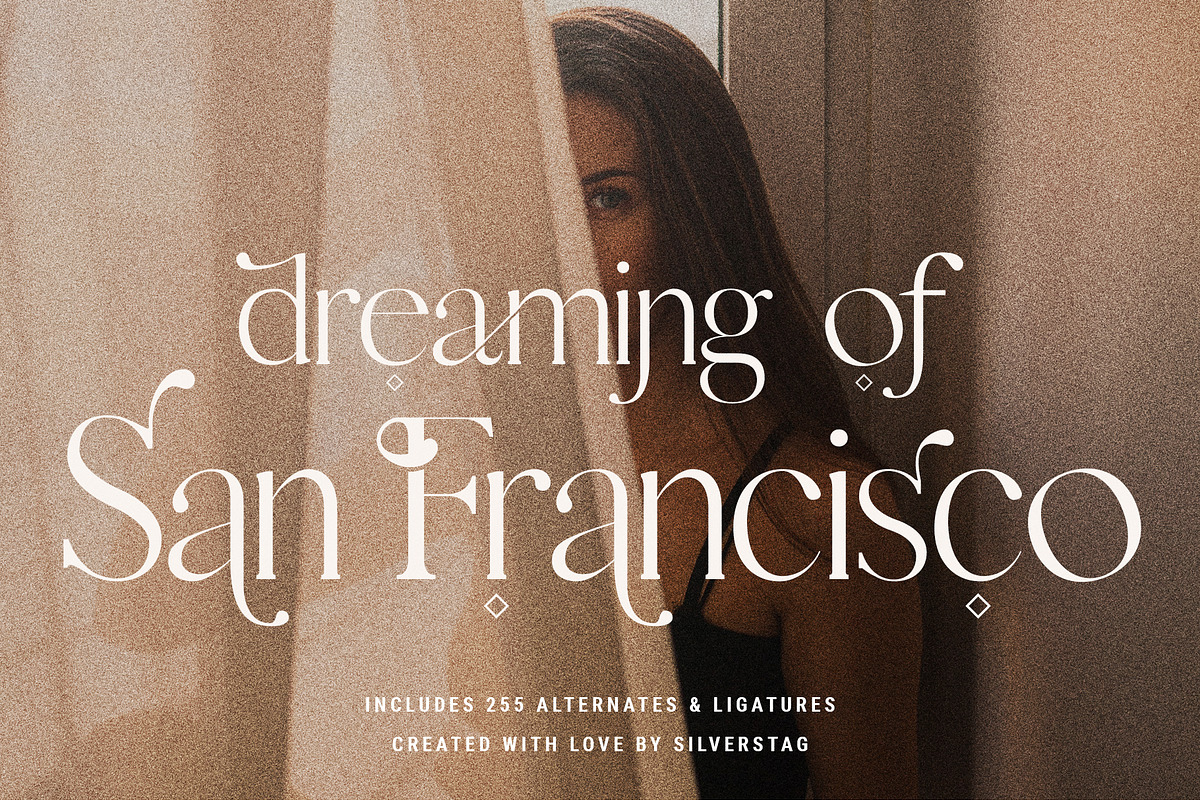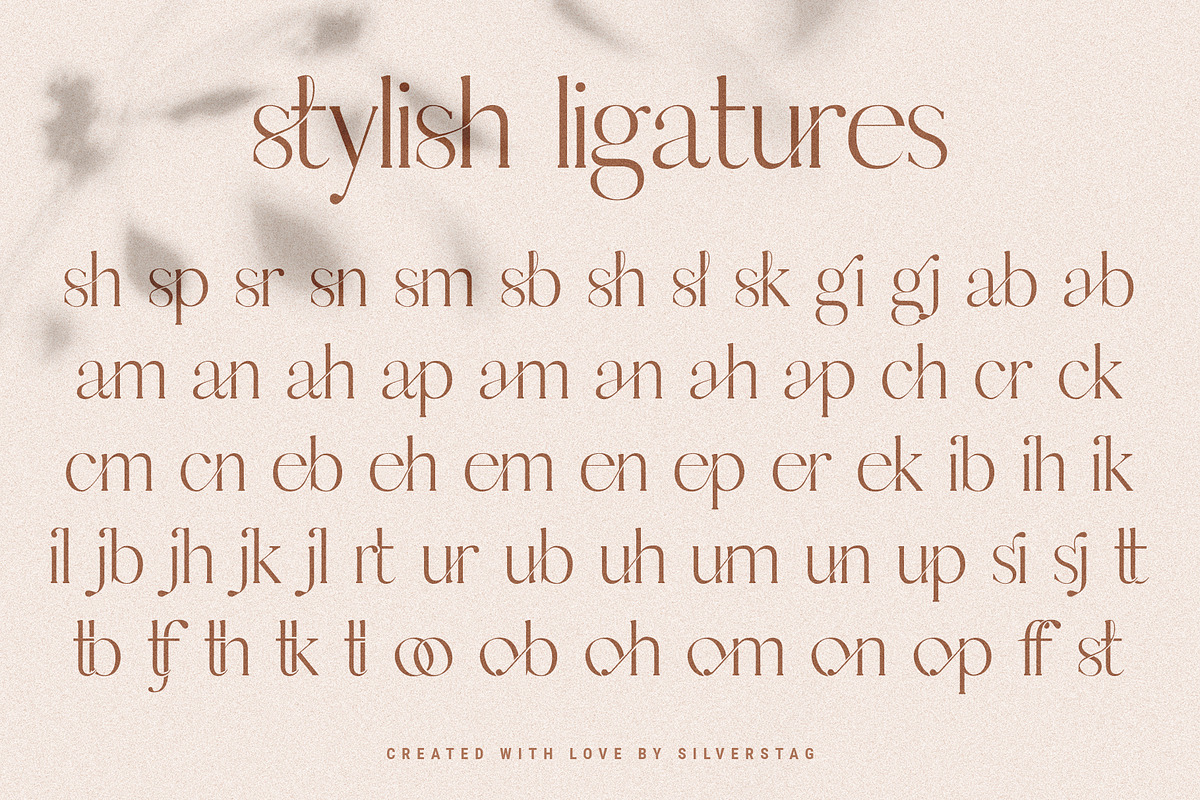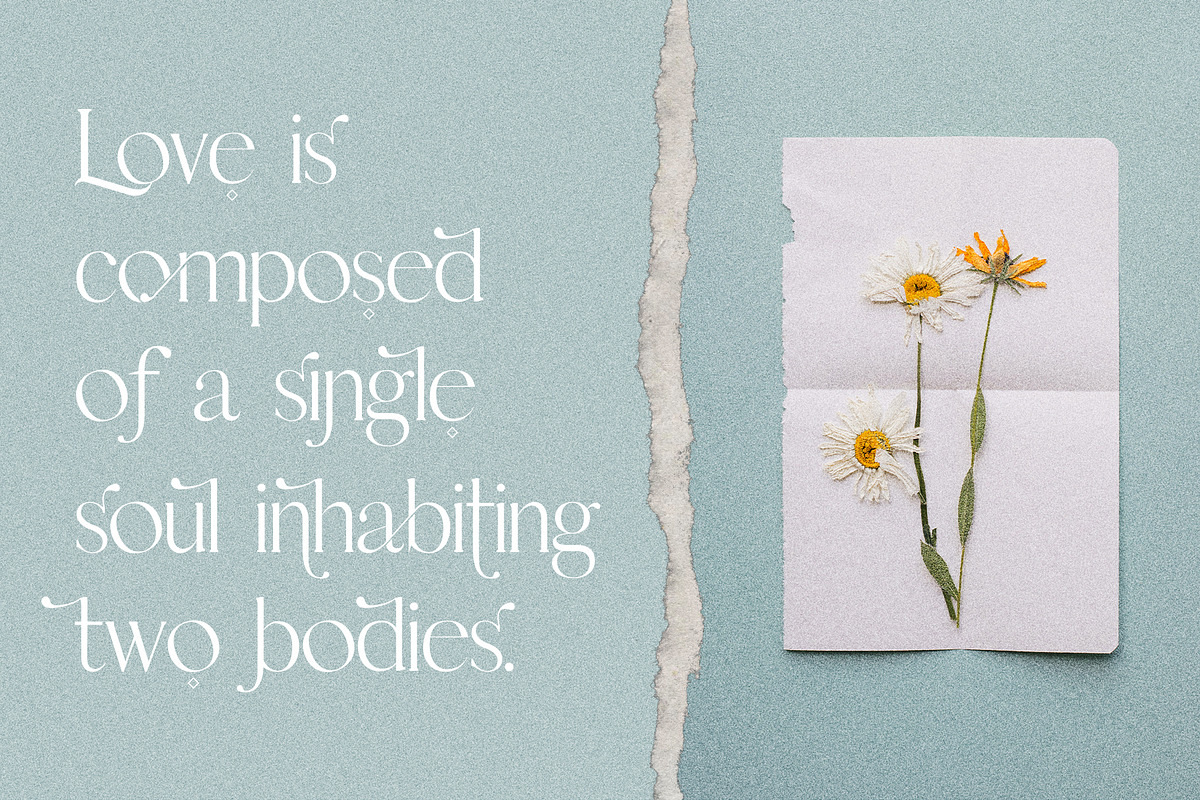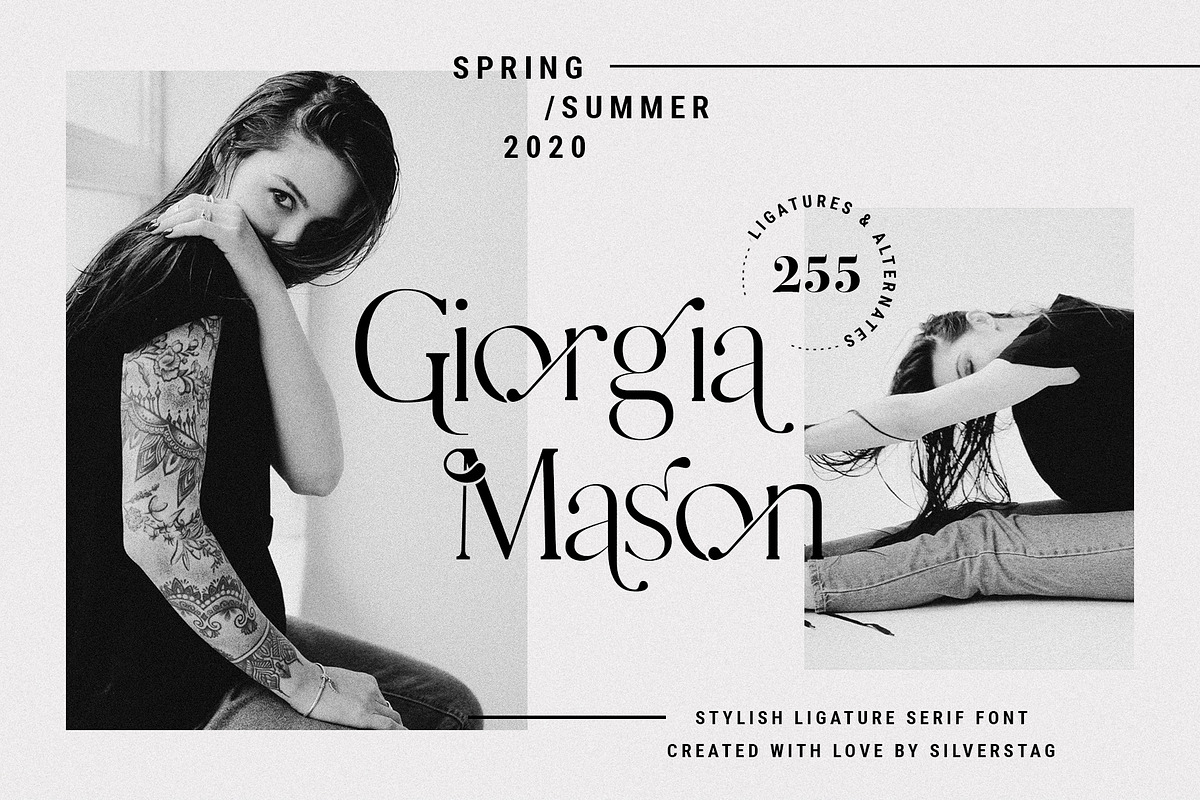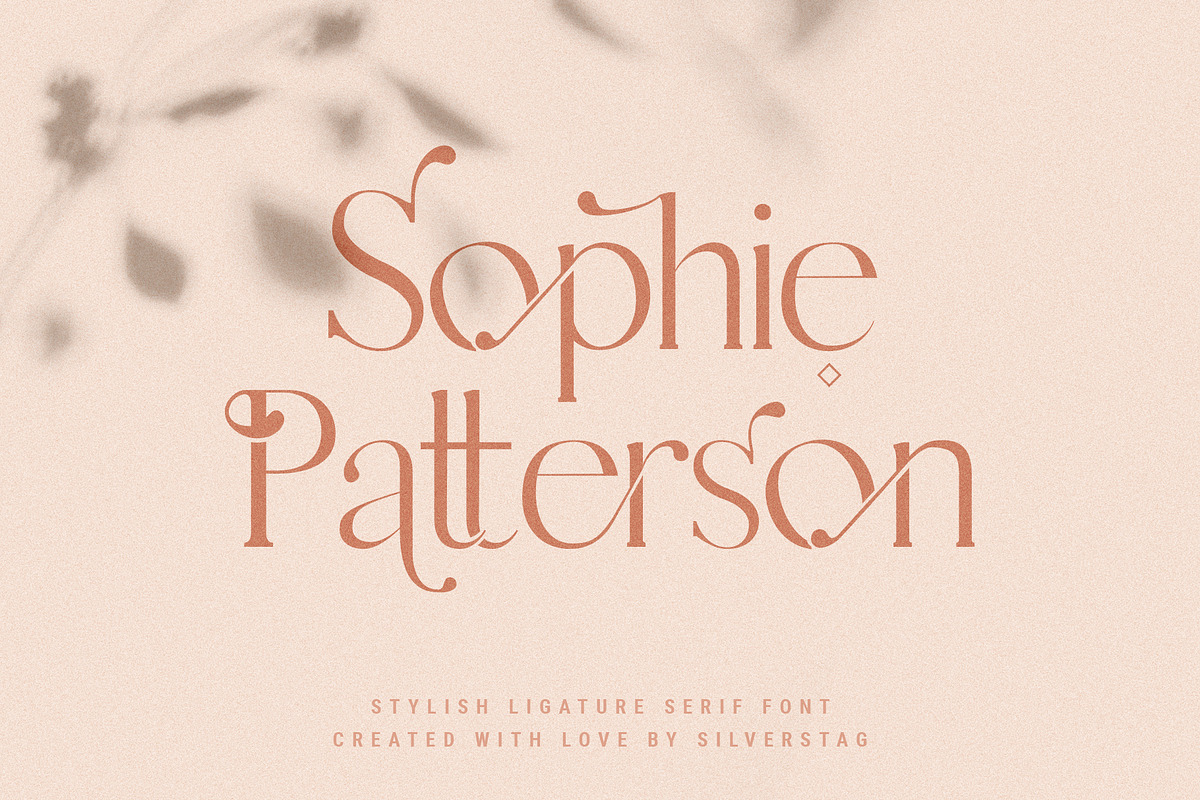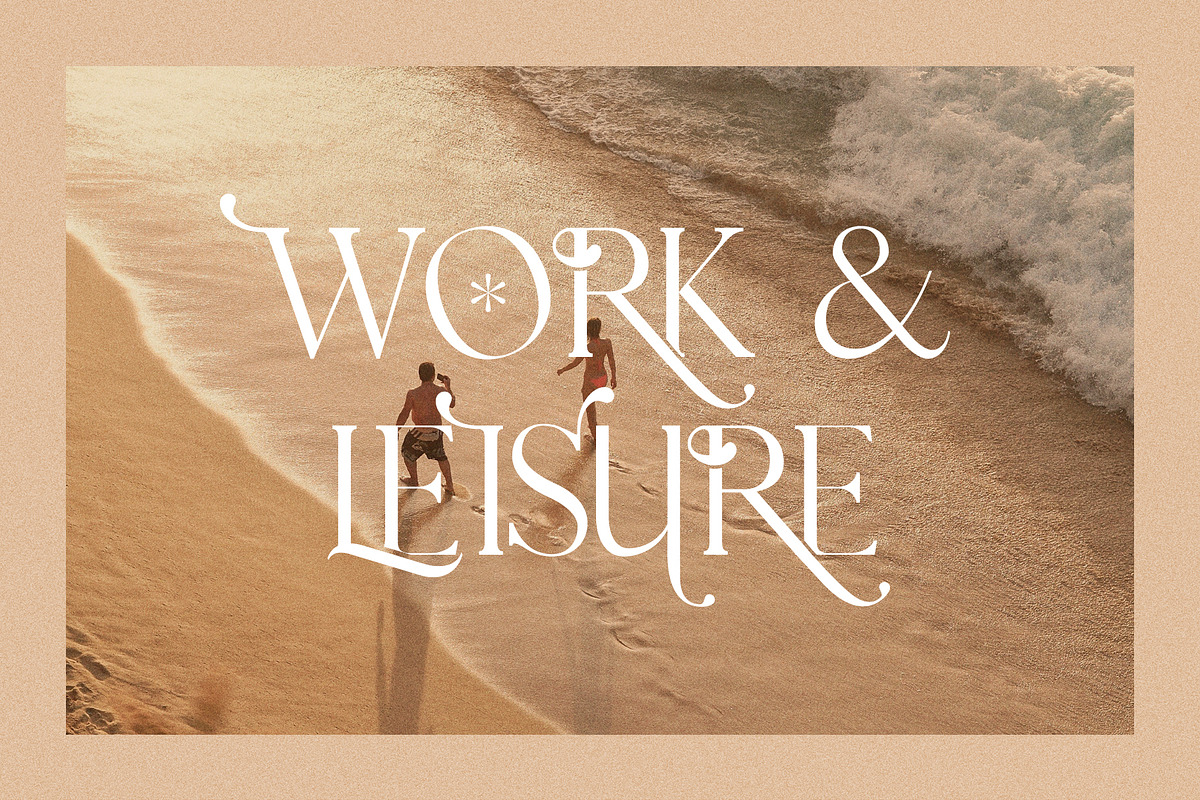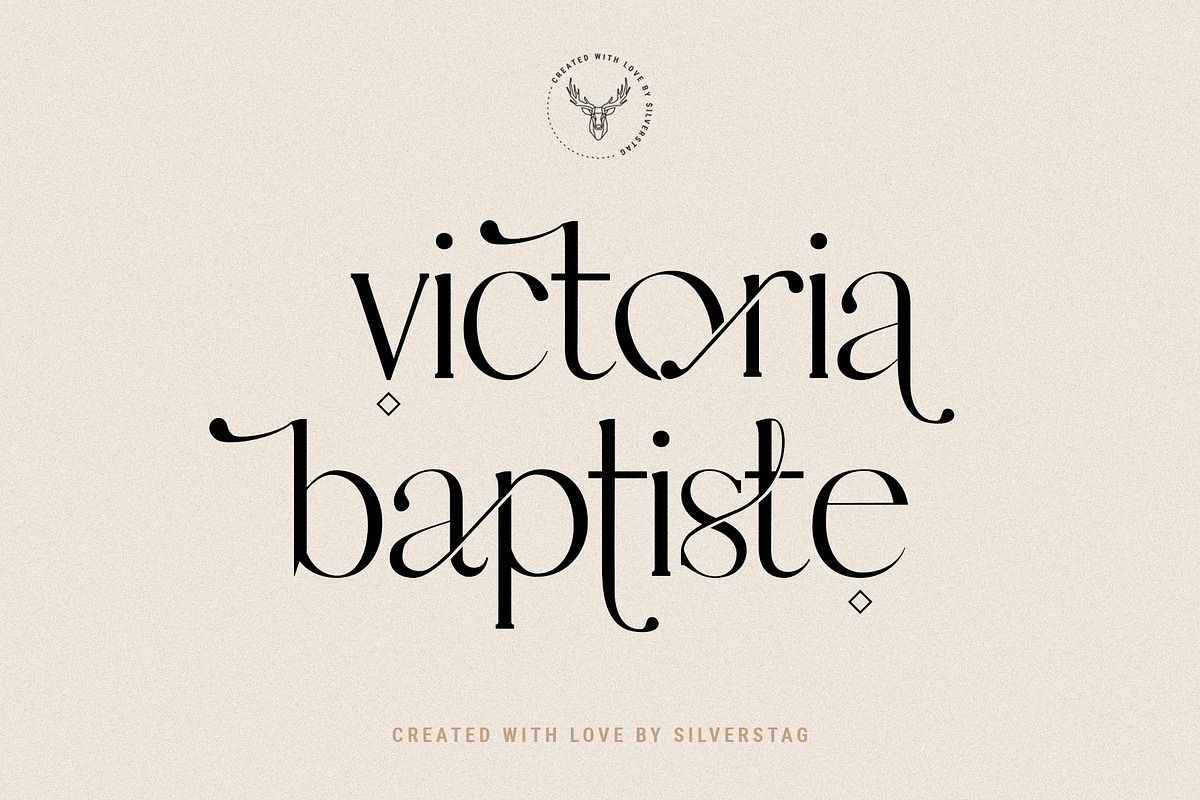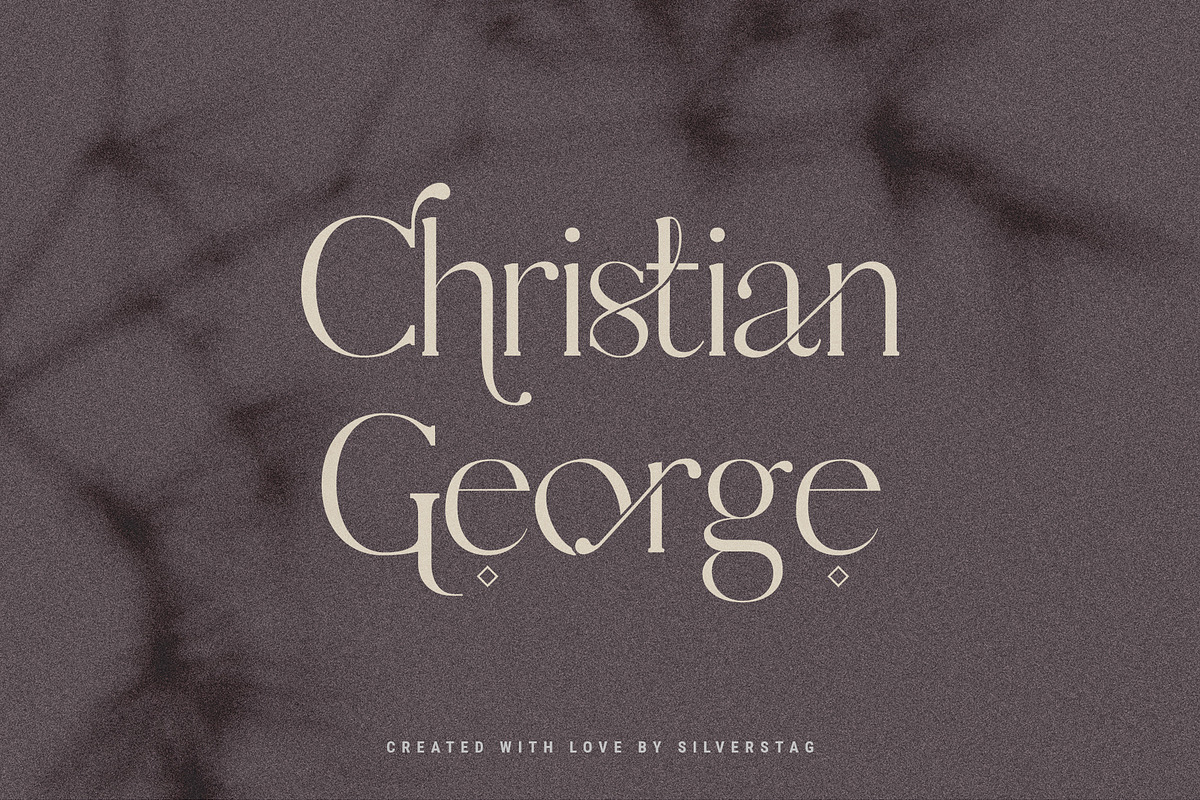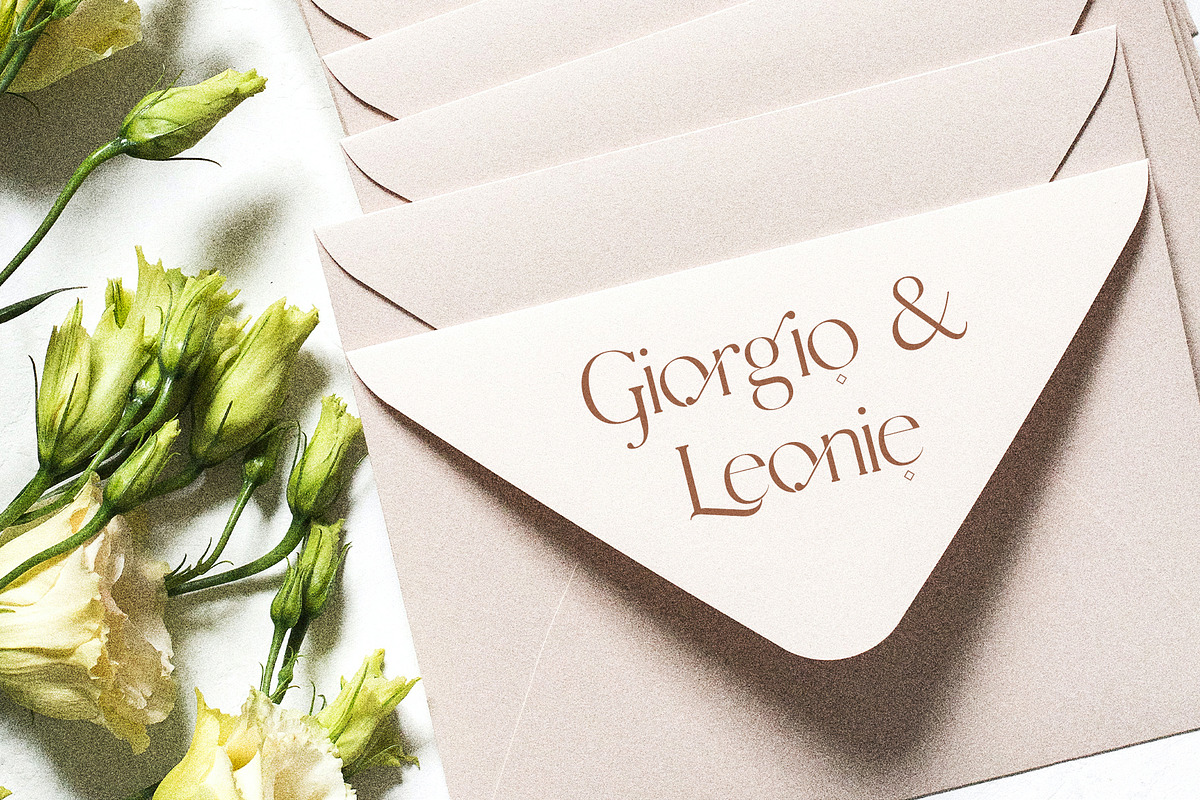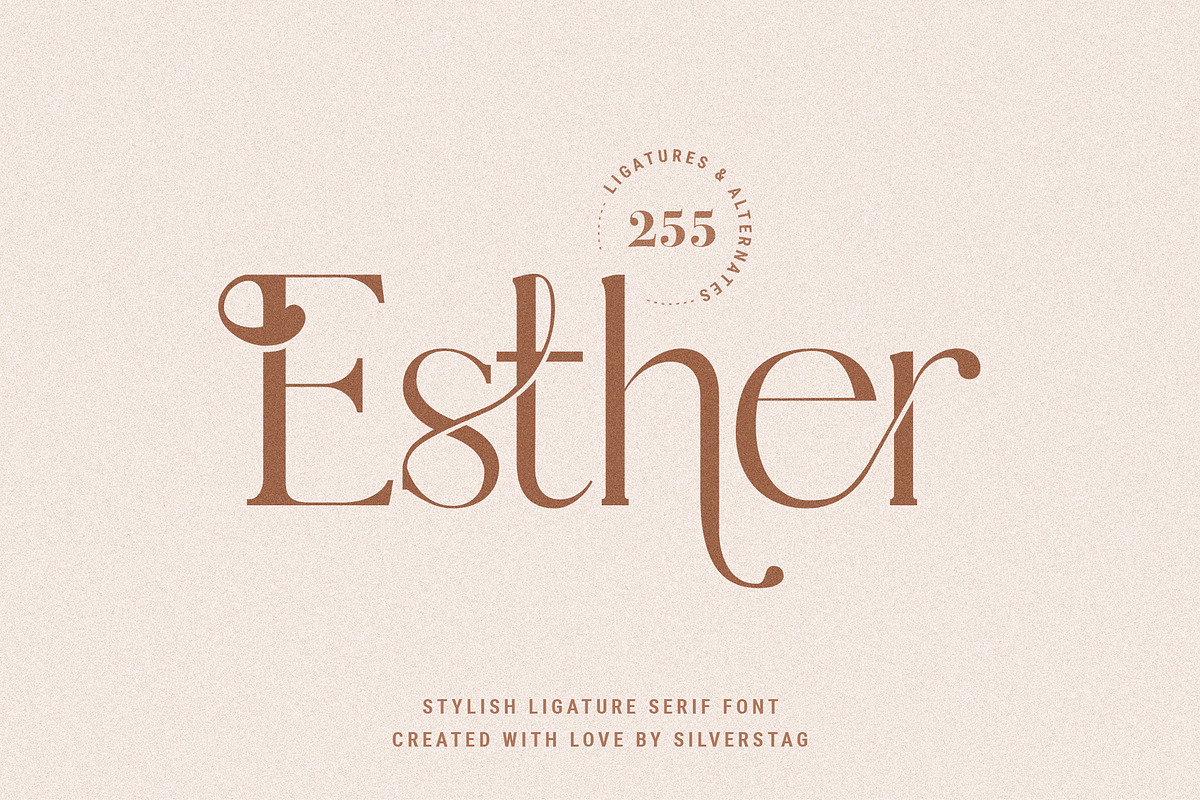
Esther - Stylish Ligature Serif Font
After I finished Vicky Christina last week, new ideas just started popping all around for more ligatures, more alternate letters, new combinations, new swirls and some of them even look like a script font ligatures, just check out the "st" ligature in the name of the font. In total I ended up with over 250 alternates and ligatures in one serif font!
So, whether you have a client that needs a new chic logo, or you're designing your social media posts. Maybe you're preparing your wedding mood board, stationery, invitations, Esther Ligature font is just perfect for all of that and more. Check out the photos I have prepared for you to see what you can do with it and happy creating!
- 255 Ligatures & Alternate letters
- Lowercase and Uppercase letters
The following letters are included: A À Á Â Ã Ä Å C Ç D Ð E È É Ê Ë I Ì Í Î Ï N Ñ O Ø Ò Ó Ô Õ Ö U Ù Ü Ú Û W Ẃ Ŵ ẄẀ Y Ý Ÿ Ỳ Ÿ Æ Œ ß Þ þ in uppercase and lowercase so Vicky Christina supports a huge number of languages.